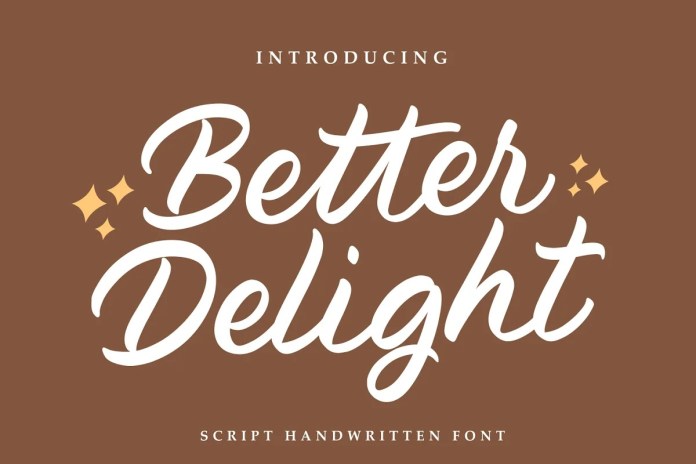
This is a vintage bold display font, clean, and visual elegance. It’s designed and shared by Letterhend Studio. Comes with 38 bonus hand drawn illustration in vector and free 12 premade logo. This type of font perfectly made to be applied especially in logo, headline, signage and the other various formal forms such as invitations, labels, logos, magazines, books, greeting / wedding cards, packaging, fashion, make up, stationery, novels, labels or any type of advertising purpose.